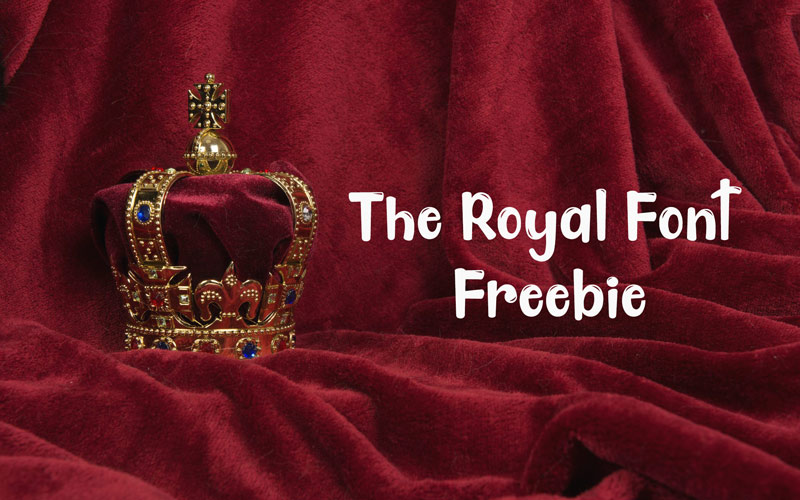
The Royal Font – Freebie
Introduce a touch of regal elegance to your designs with The Royal Font Freebie — a curated collection of majestic typography inspired by classic royal aesthetics. Best of all: it’s free.
- A selection of regal typefaces featuring:
- Elegant serifs that command attention
- Decorative scripts and flourishes that add a refined, hand-crafted feel
- A perfect complement to luxury branding, wedding stationery, and high-end print materials
Ideal for
- Wedding invitations and stationery
- Luxury brand logos and identity systems
- Packaging, editorial layouts, and refined marketing materials
- Any project that needs a sophisticated, majestic look
Sneak a peek
- Elegant Serif: stately letterforms for headlines and logos
- Flourished Script: decorative swashes and ligatures for accents
- Ornamental Capitals: regal initials and display options